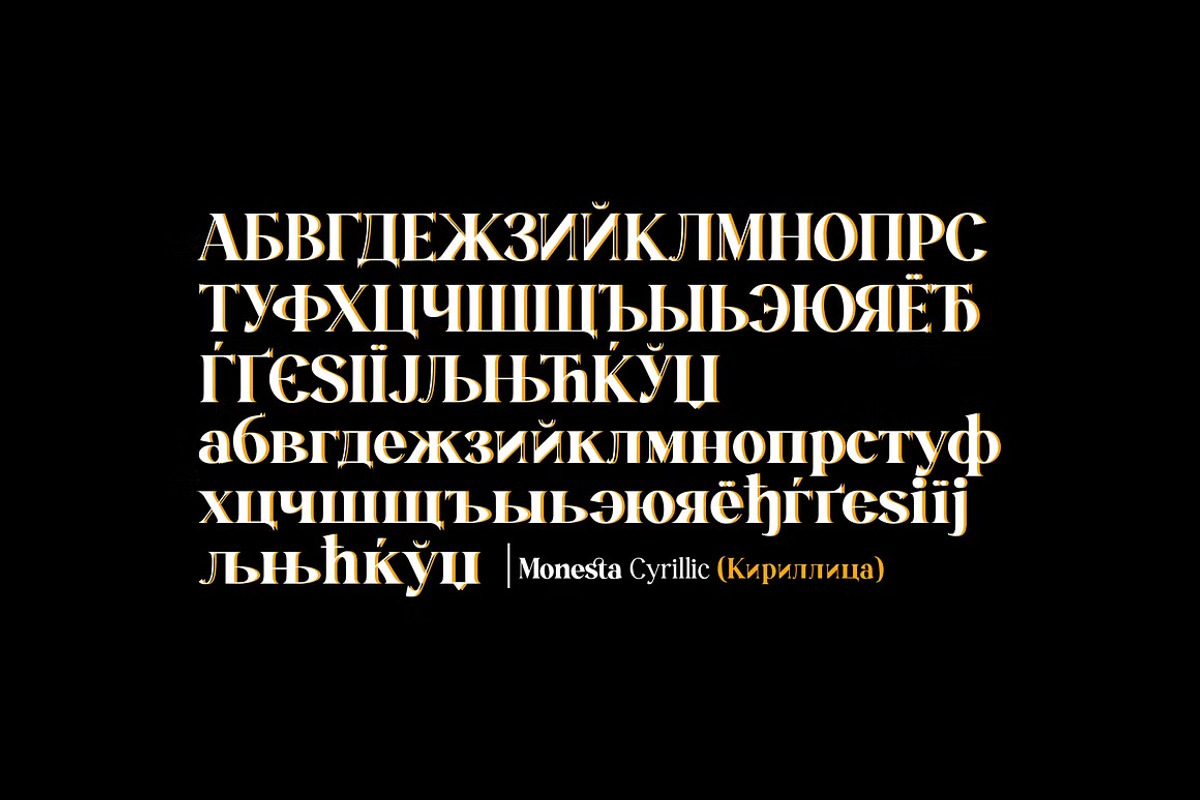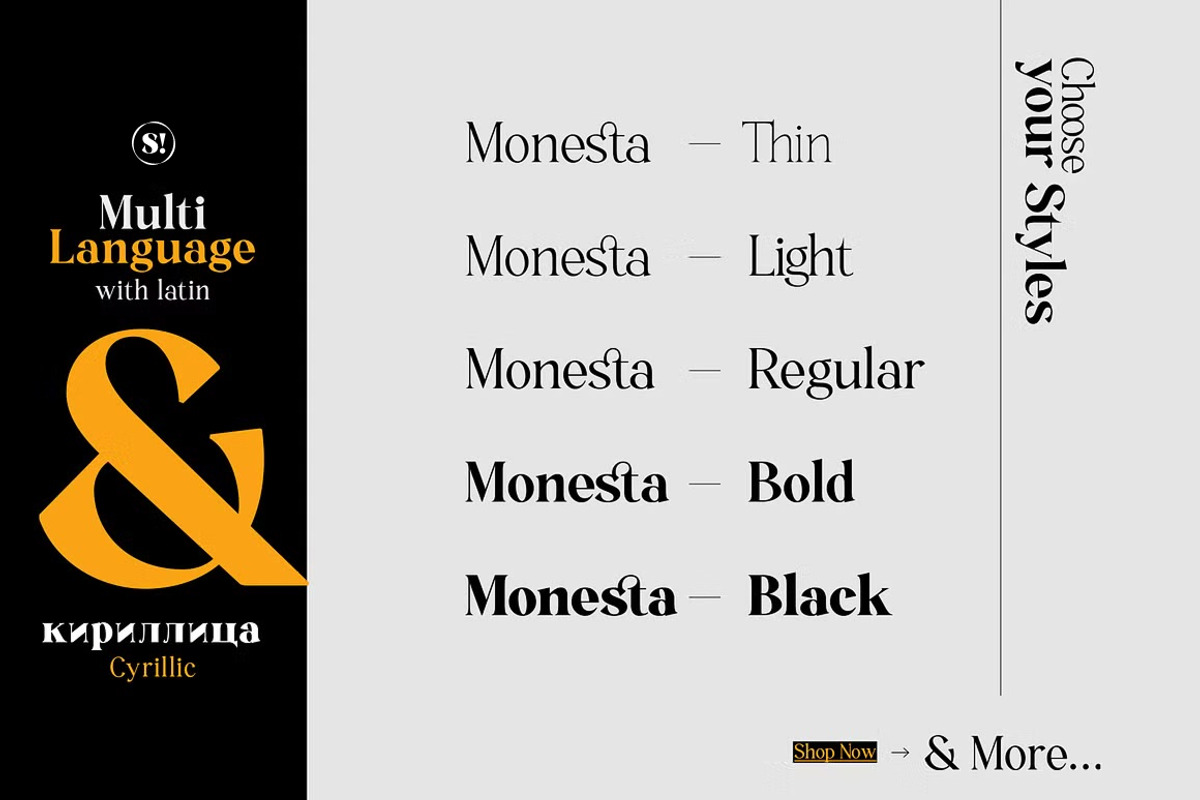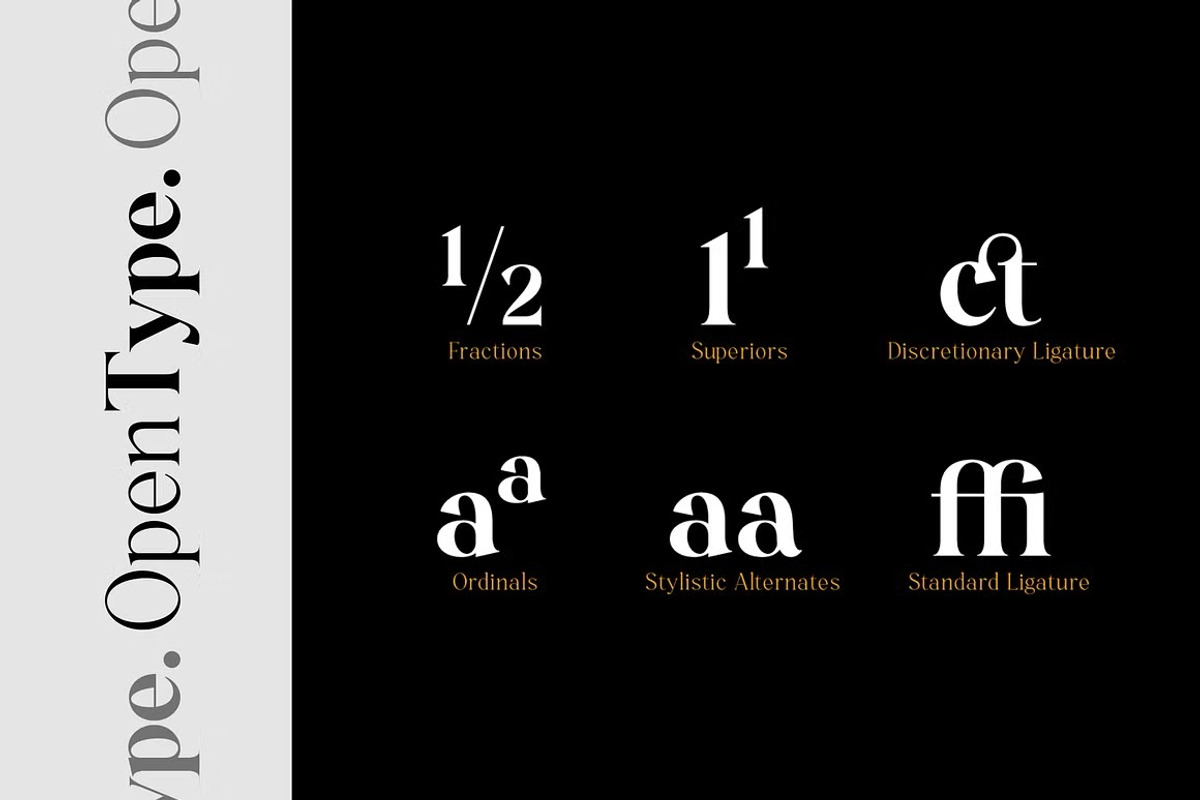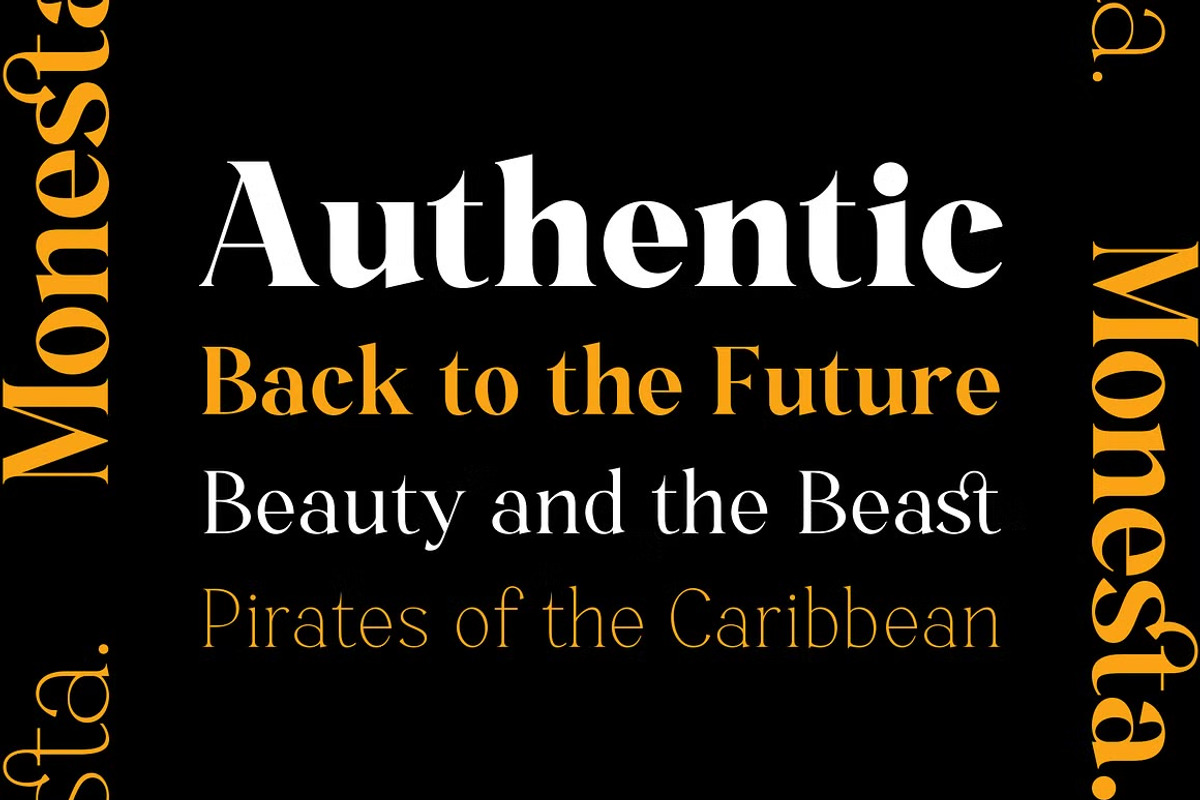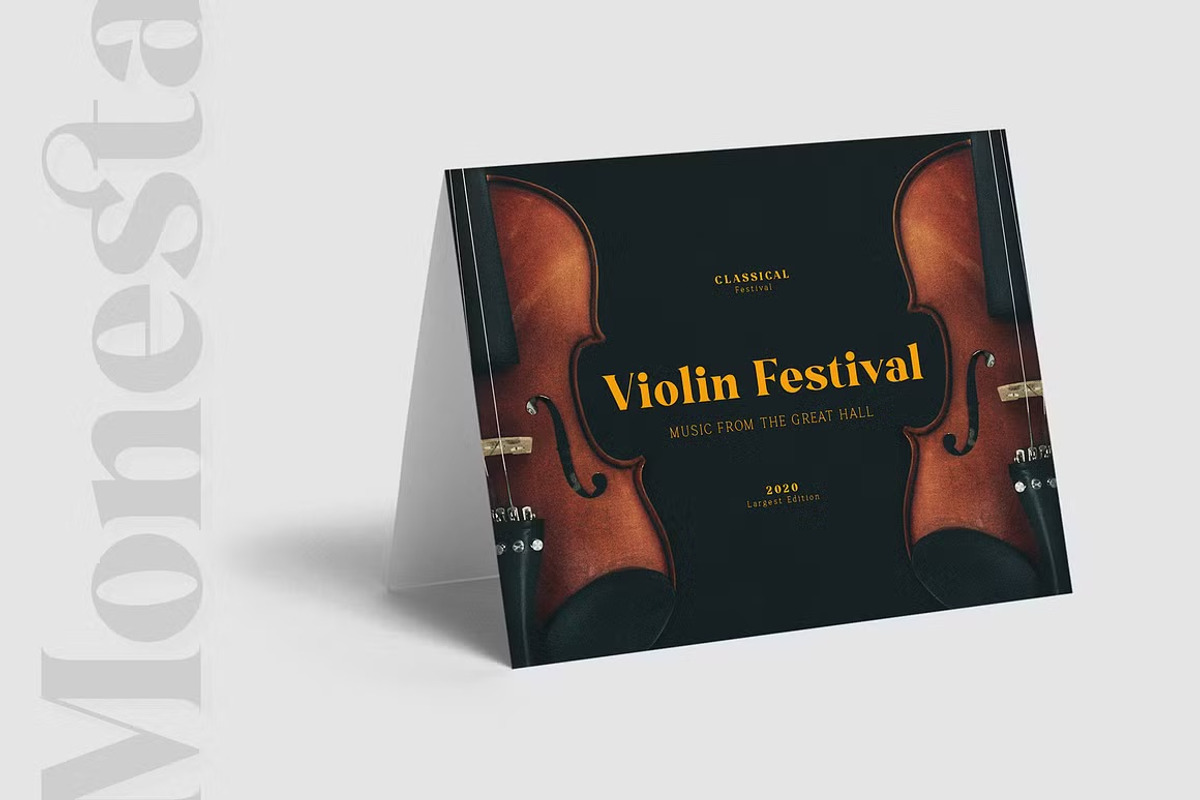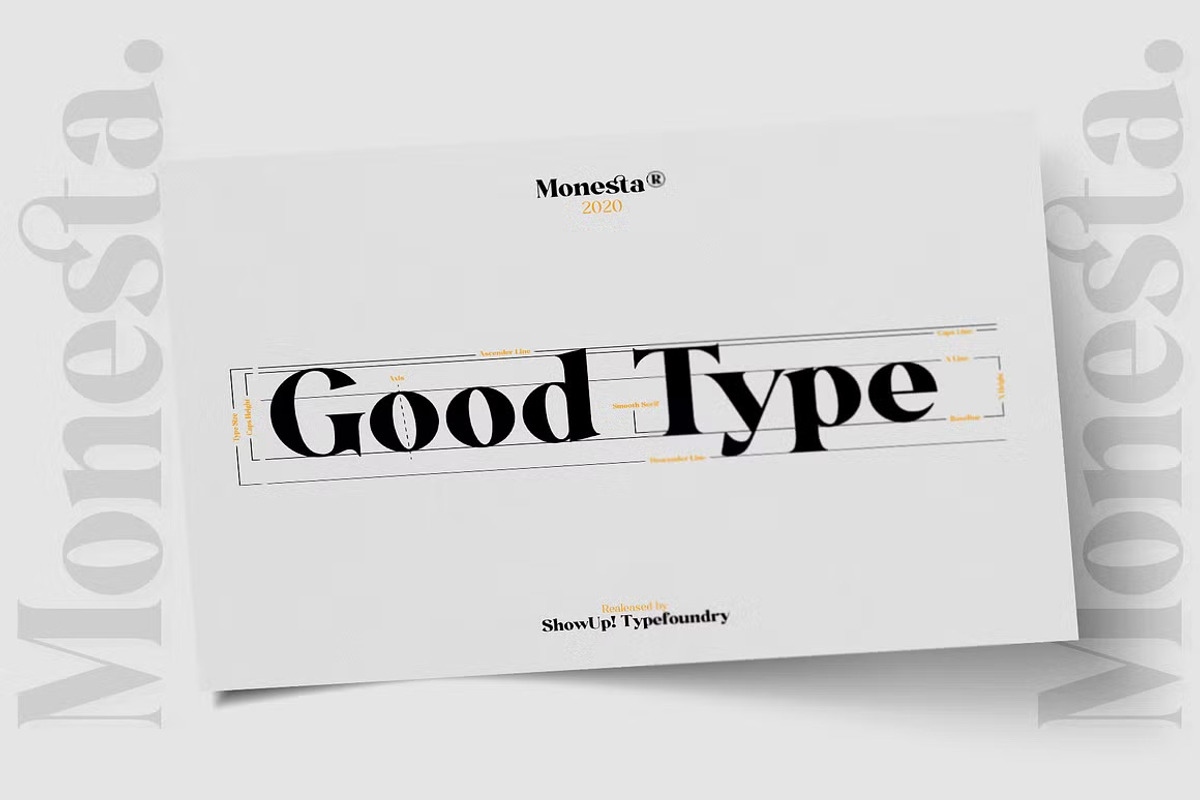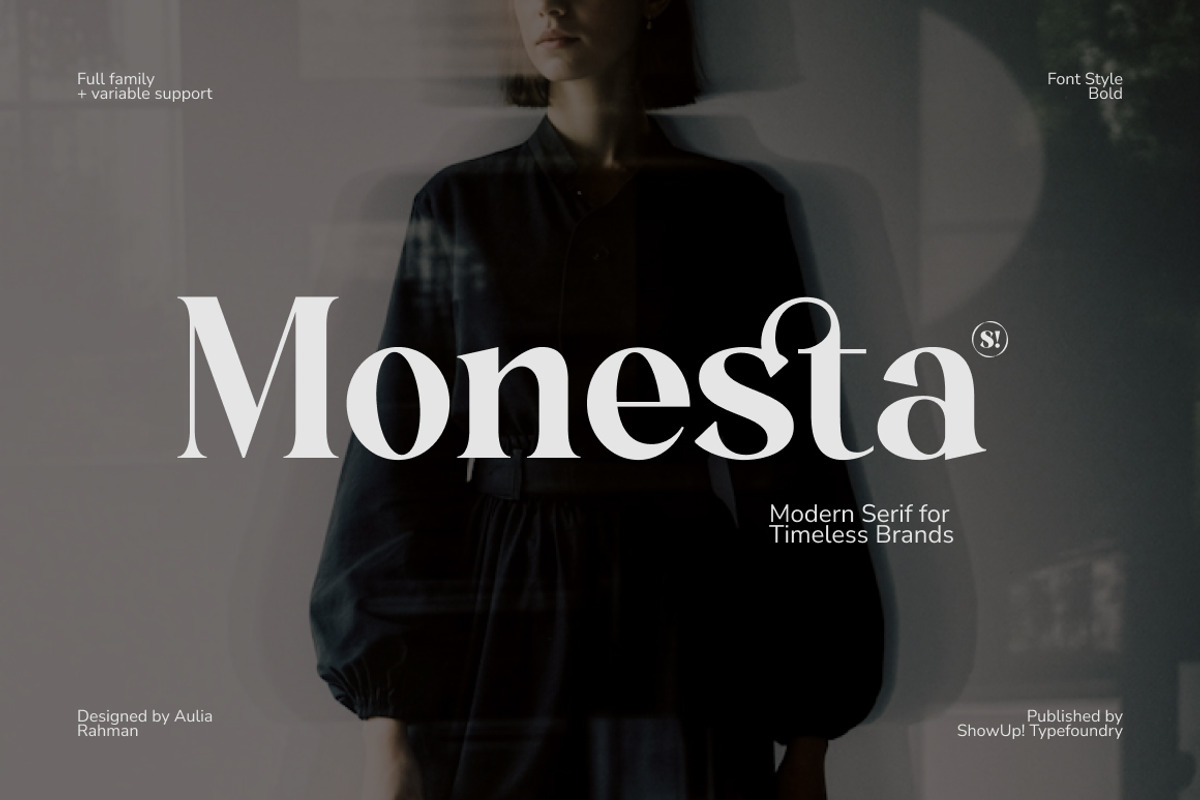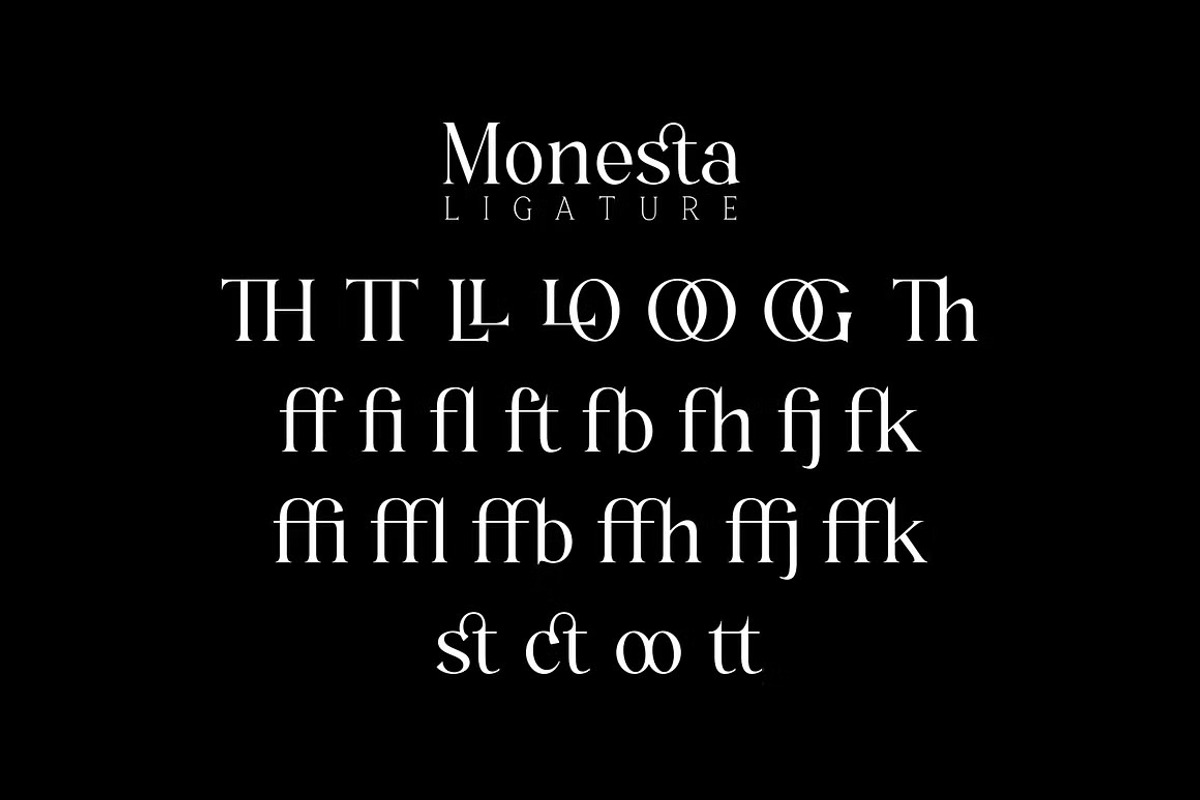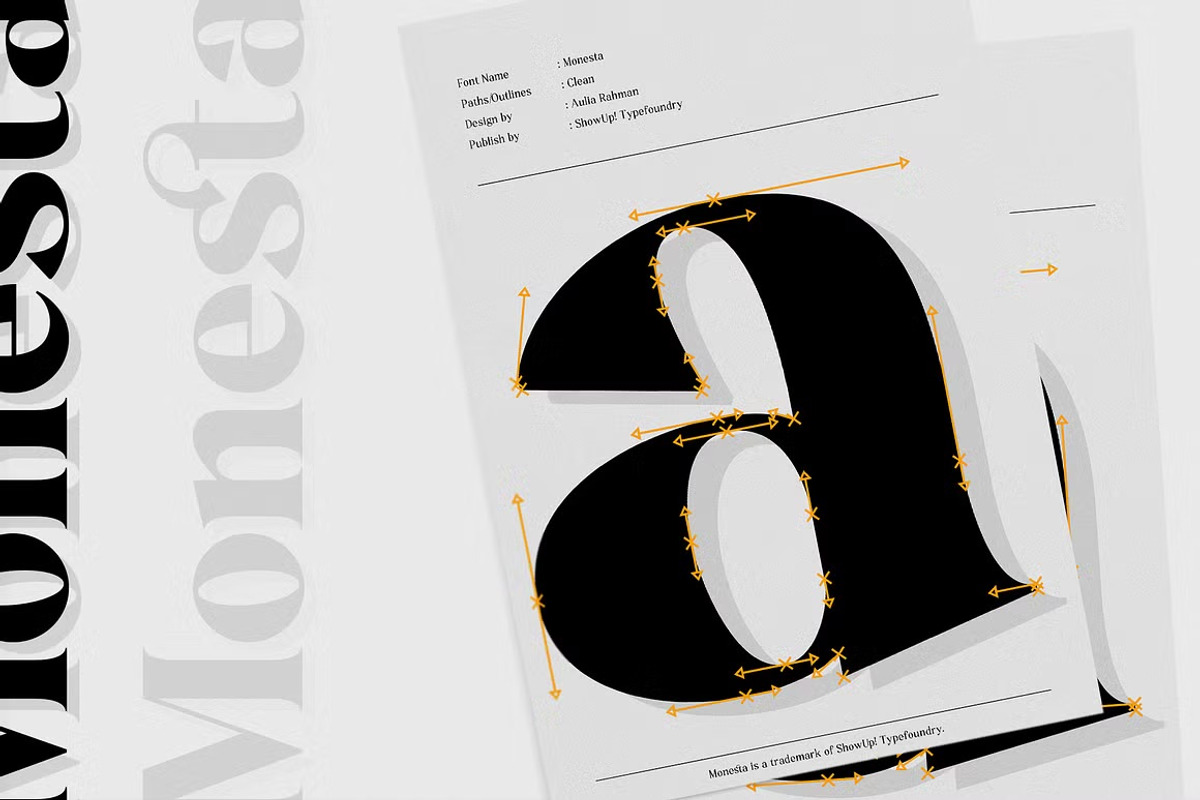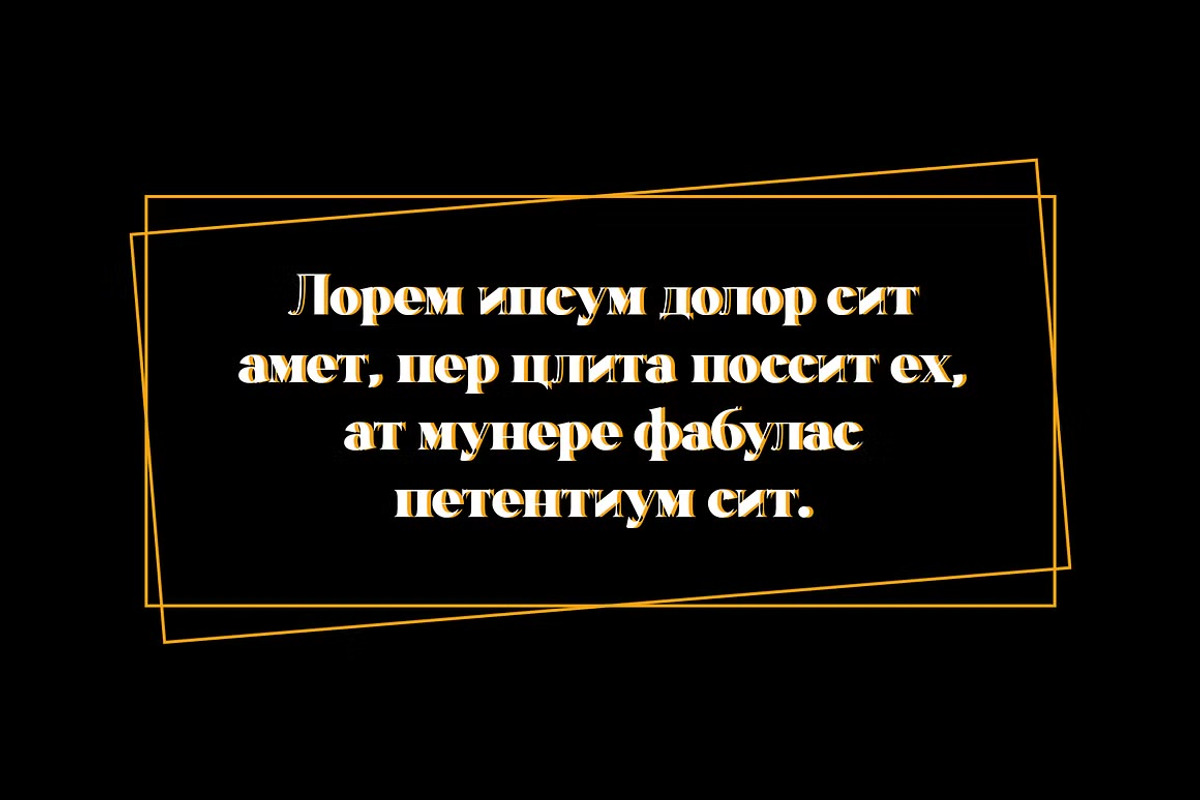
Monesta Bold
Monesta® is a confident smooth serif font family. Designed by Aulia Rahman, Monesta® creates a sense of softness and expressiveness. the concept into the usability-focused direction, to work as a bold tool and beautiful communicator.
Monesta® variable allows design across 9 weights, major Latin-based languages, and Cyrillic. Monesta® bringing energy and making it suitable for modern design.